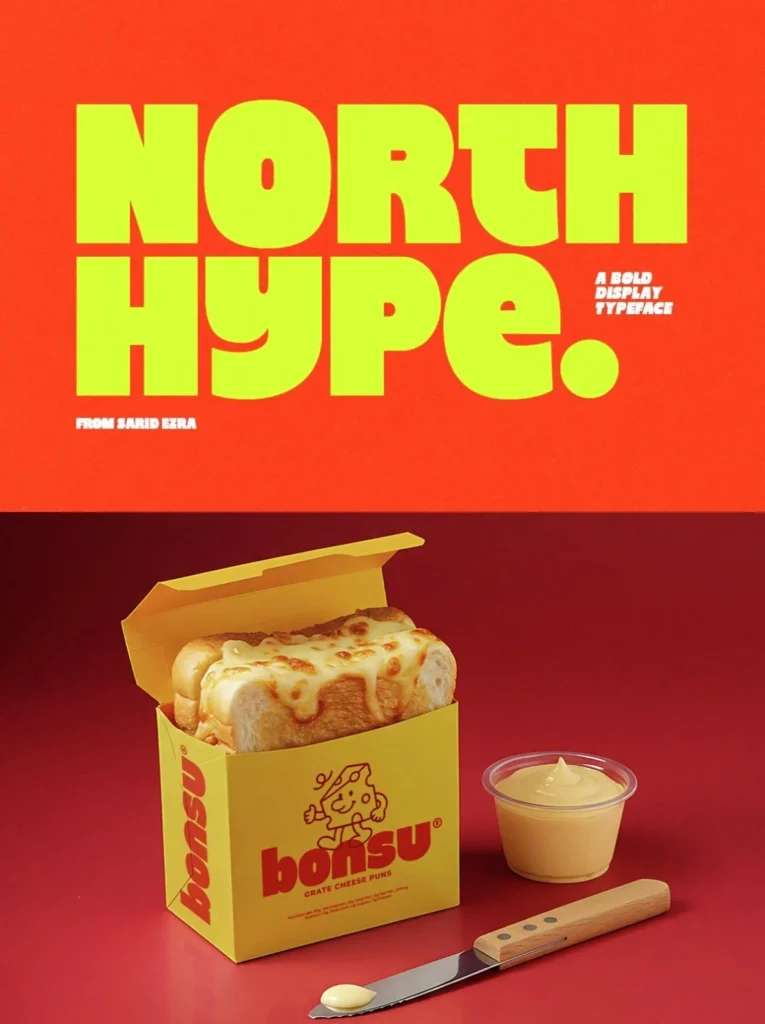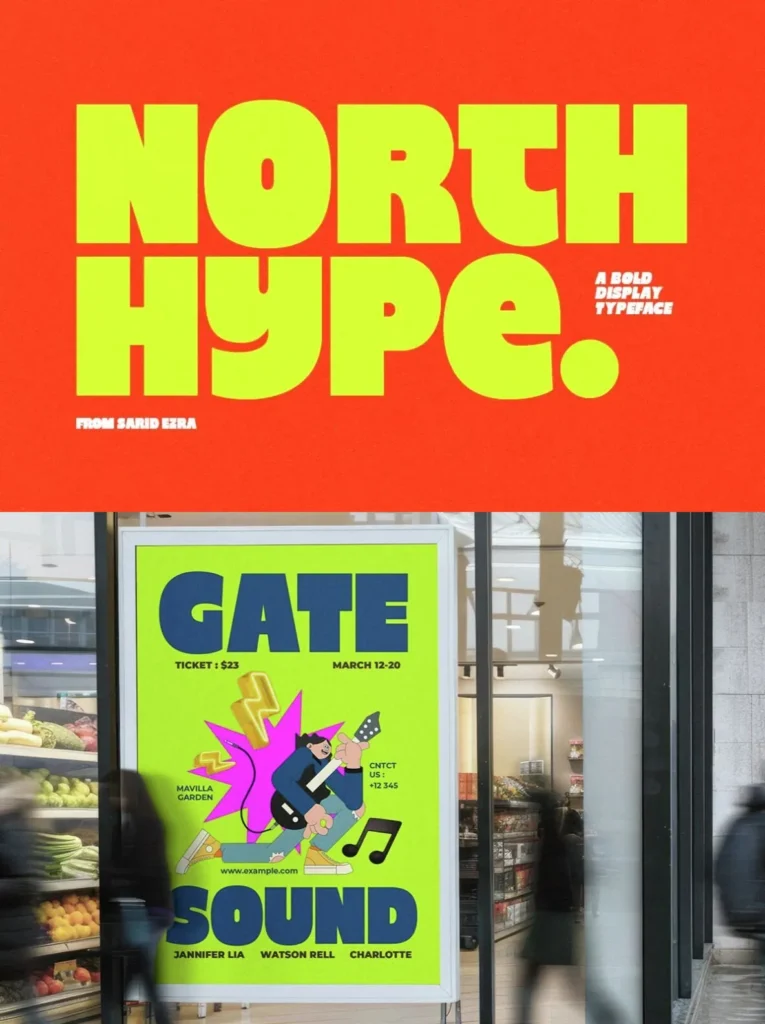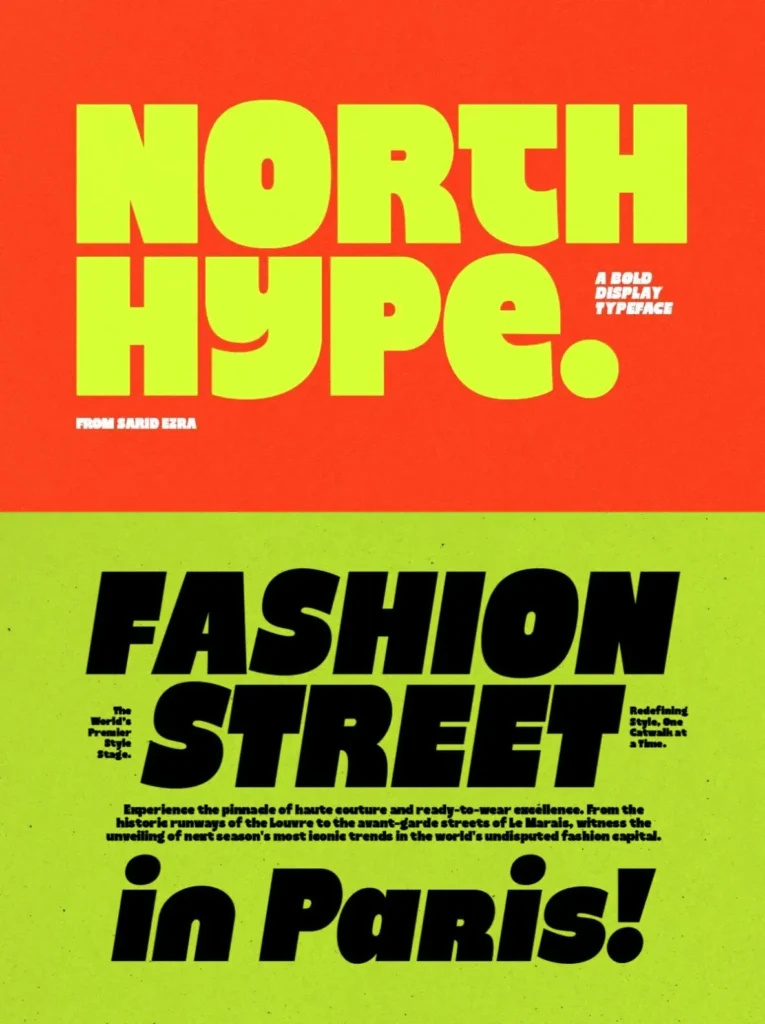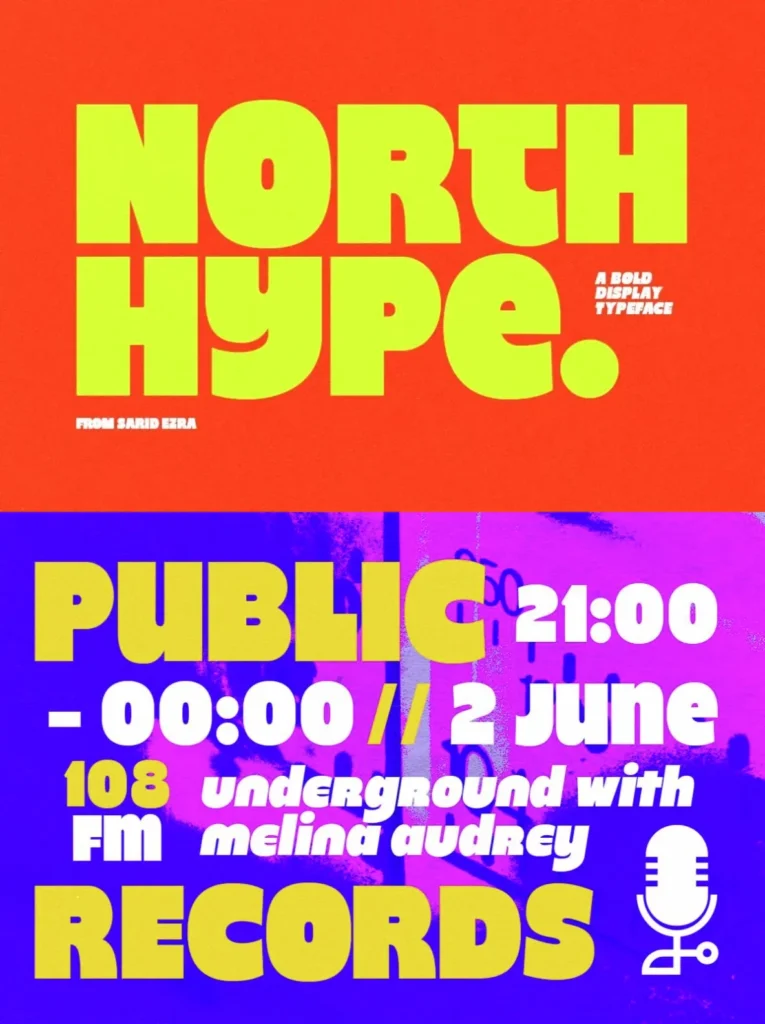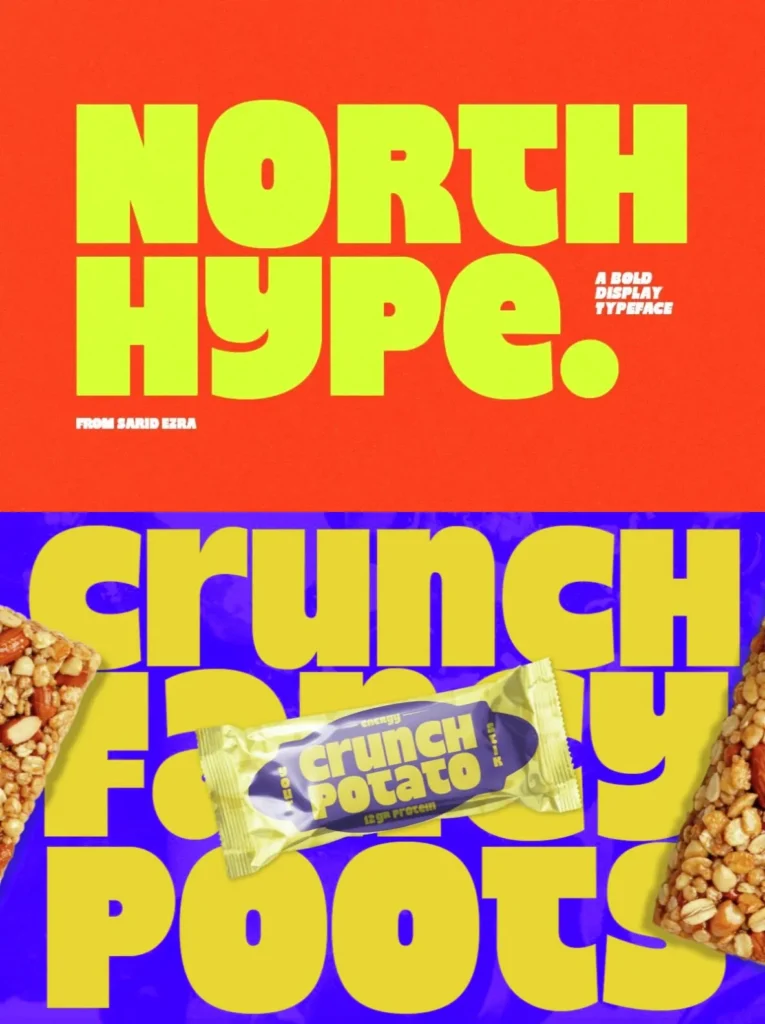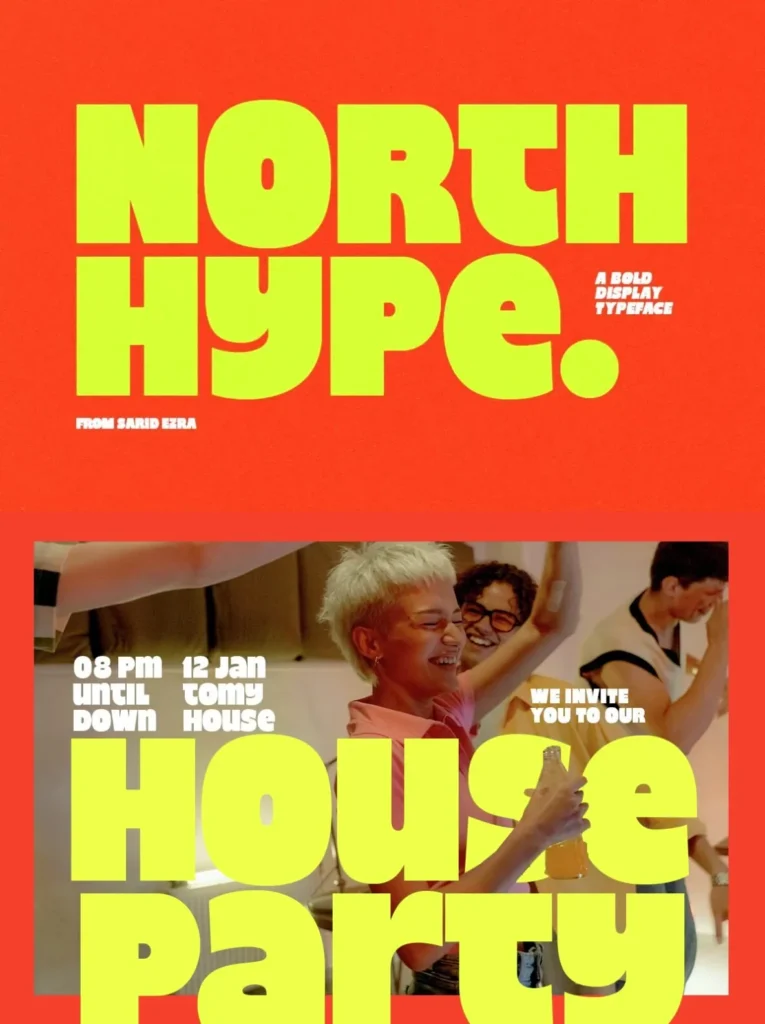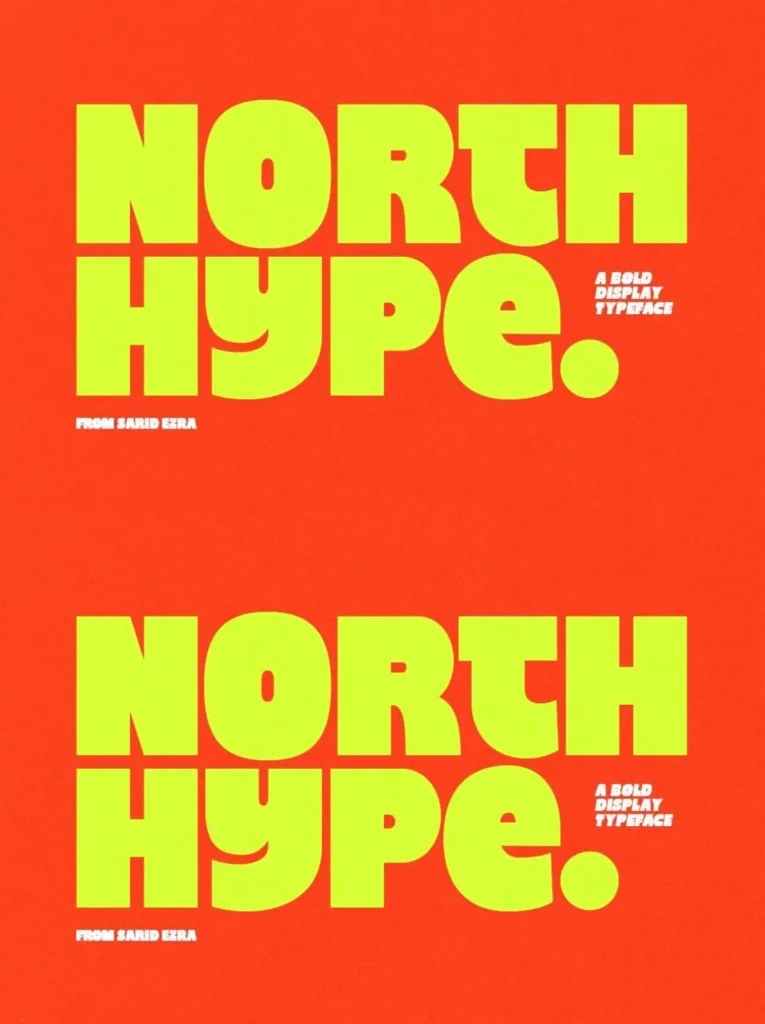
North Hype — Bold Streetwise Display
North Hype is a big, bold display sans serif with distinctive alternate characters. Use the alternates together with the standard character set to give headlines, identities, and graphic layouts a trendy, modern look with strong visual impact.
This font suits contemporary design work that needs a confident voice. North Hype also comes with an italic version and supports multiple languages, making it a flexible choice for display typography across branding, editorial, and expressive visual projects.
Recommended Uses
Poster
Logotype
Fashion magazine
Street art
Any project that needs a contemporary and strong look